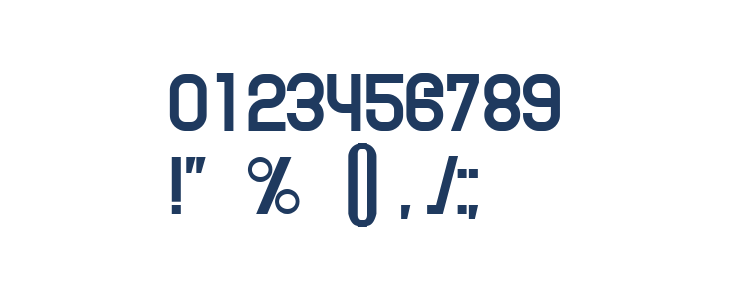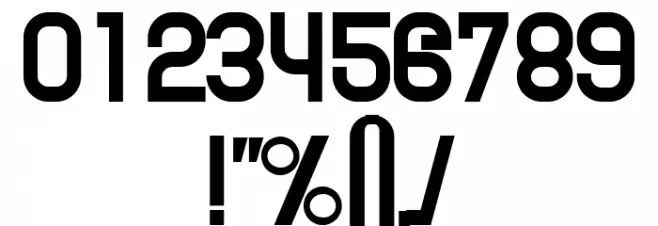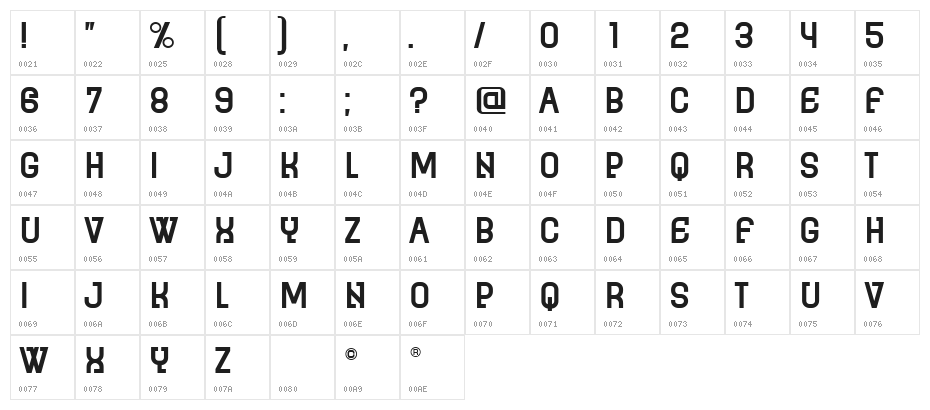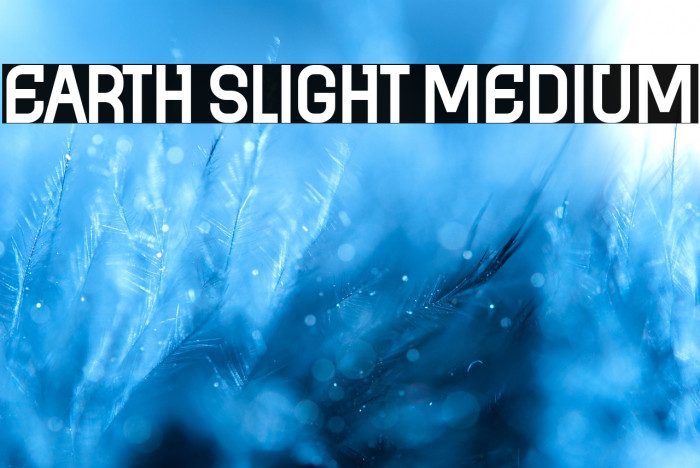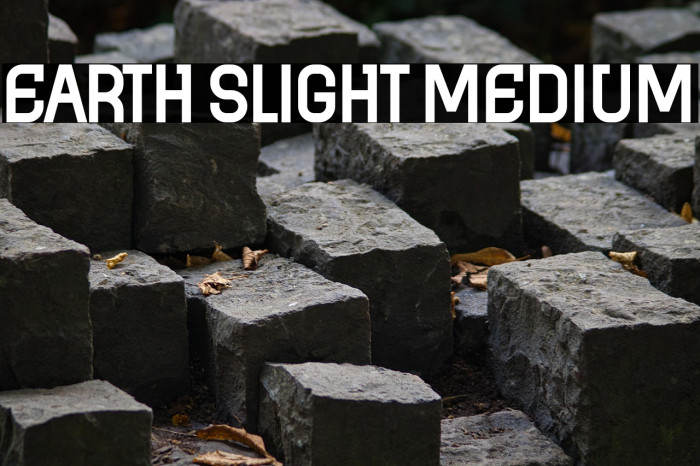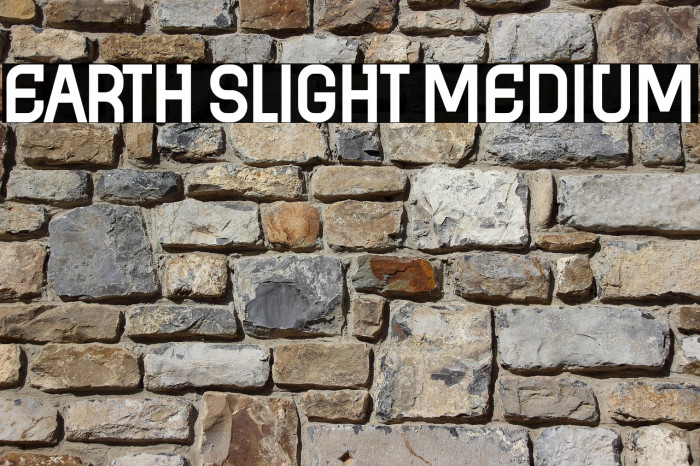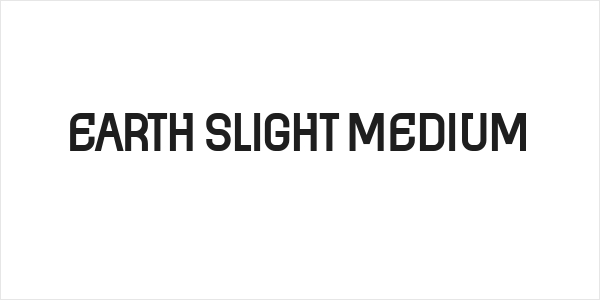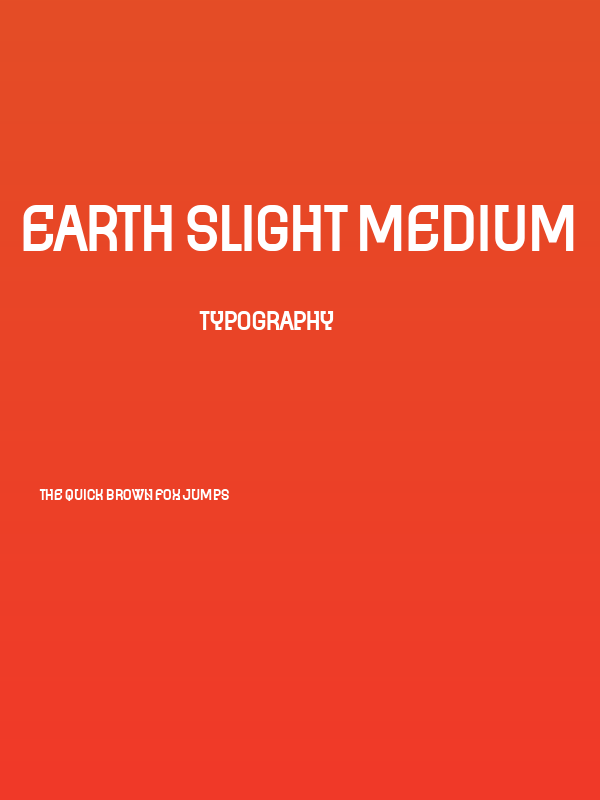
Earth Slight Medium Font
Earth Slight Medium Description
This font presents a bold and modern aesthetic with a strong geometric influence. The uppercase letters are characterized by their uniform stroke width and sharp angles, giving a sense of stability and strength. The lowercase letters maintain this geometric style, providing a consistent look across all characters. The numerals are equally bold, with a clear and legible design that complements the alphabetic characters. Special characters are designed with the same attention to detail, ensuring they fit seamlessly with the rest of the font. Overall, this typeface is ideal for projects that require a contemporary and assertive look.
| Proposed Projects | Ideal for branding, headlines, posters, and digital media where a strong visual impact is desired. |